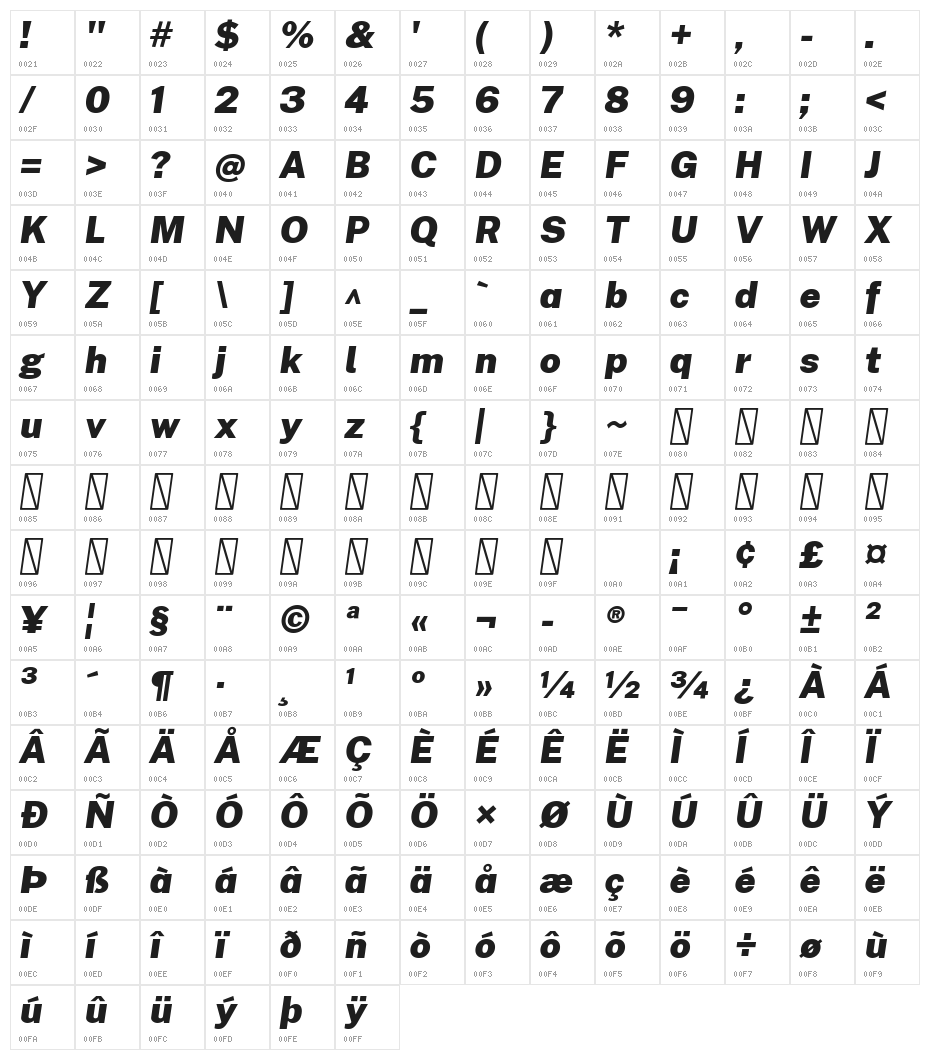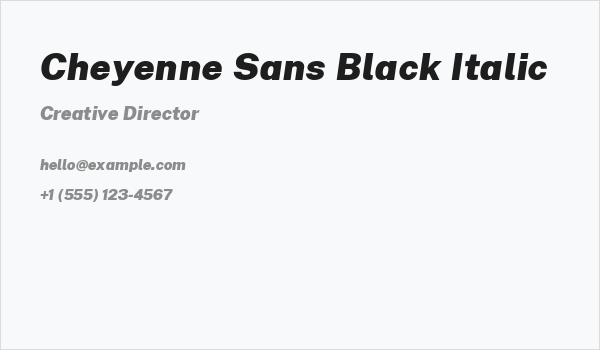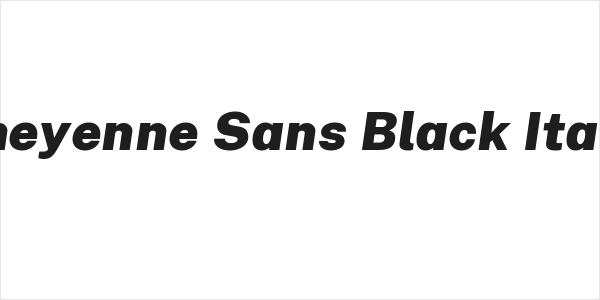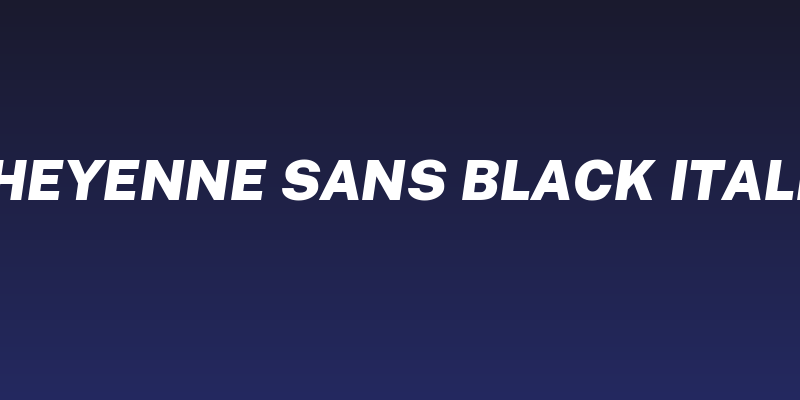
Cheyenne Sans Black Italic Font
Cheyenne Sans Black Italic Description
This font features a bold and italicized style, offering a strong and dynamic appearance. The characters are sans-serif, providing a clean and modern look. The strokes are thick, contributing to a high contrast between the characters and the background. The italic slant adds a sense of motion and emphasis, making it suitable for attention-grabbing headlines or impactful statements. The overall design is sleek and contemporary, with a focus on clarity and readability. The character spacing is normal, ensuring that each letter is distinct while maintaining a cohesive flow.
| Proposed Projects | Ideal for branding, advertising, headlines, and any project requiring a bold statement. |